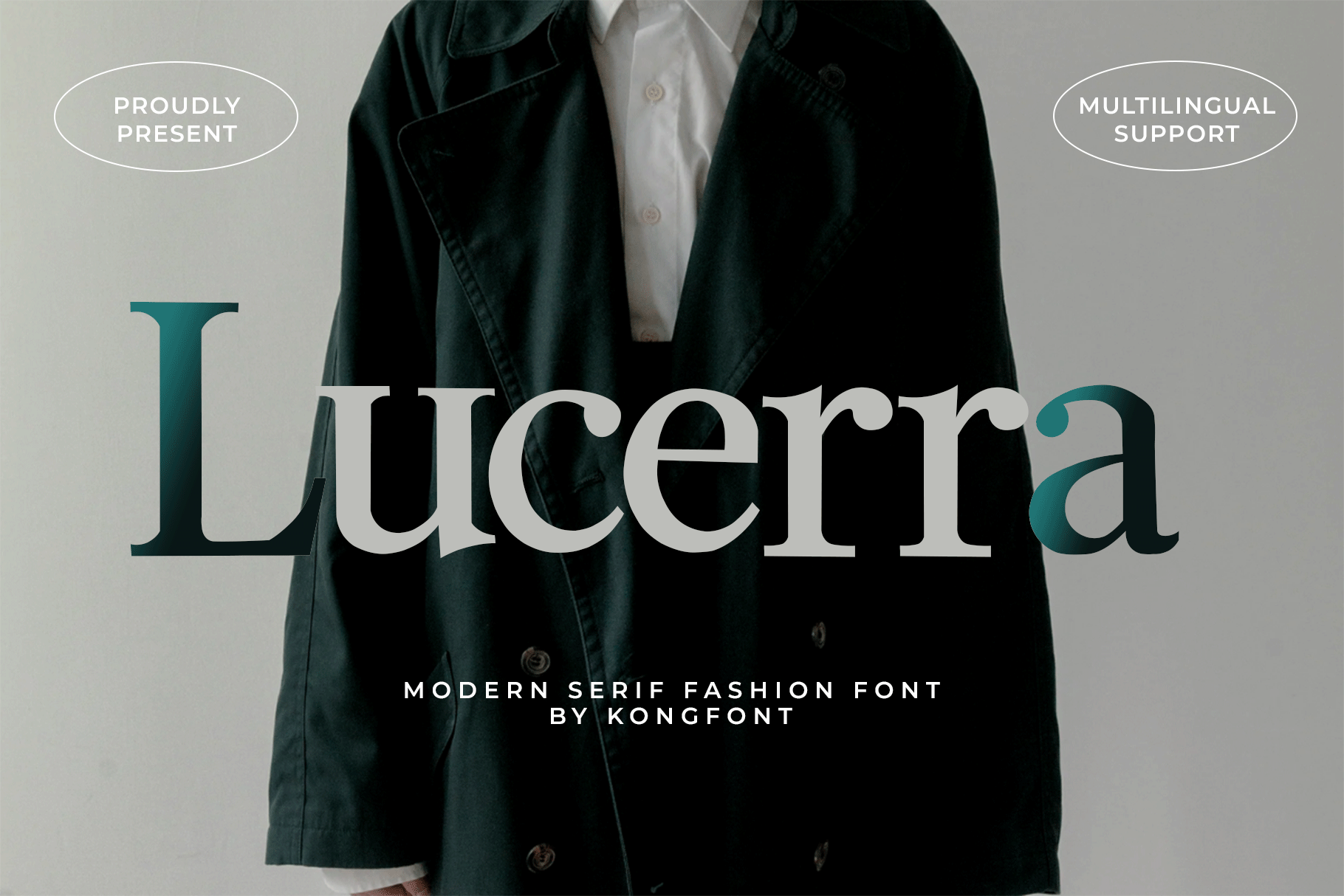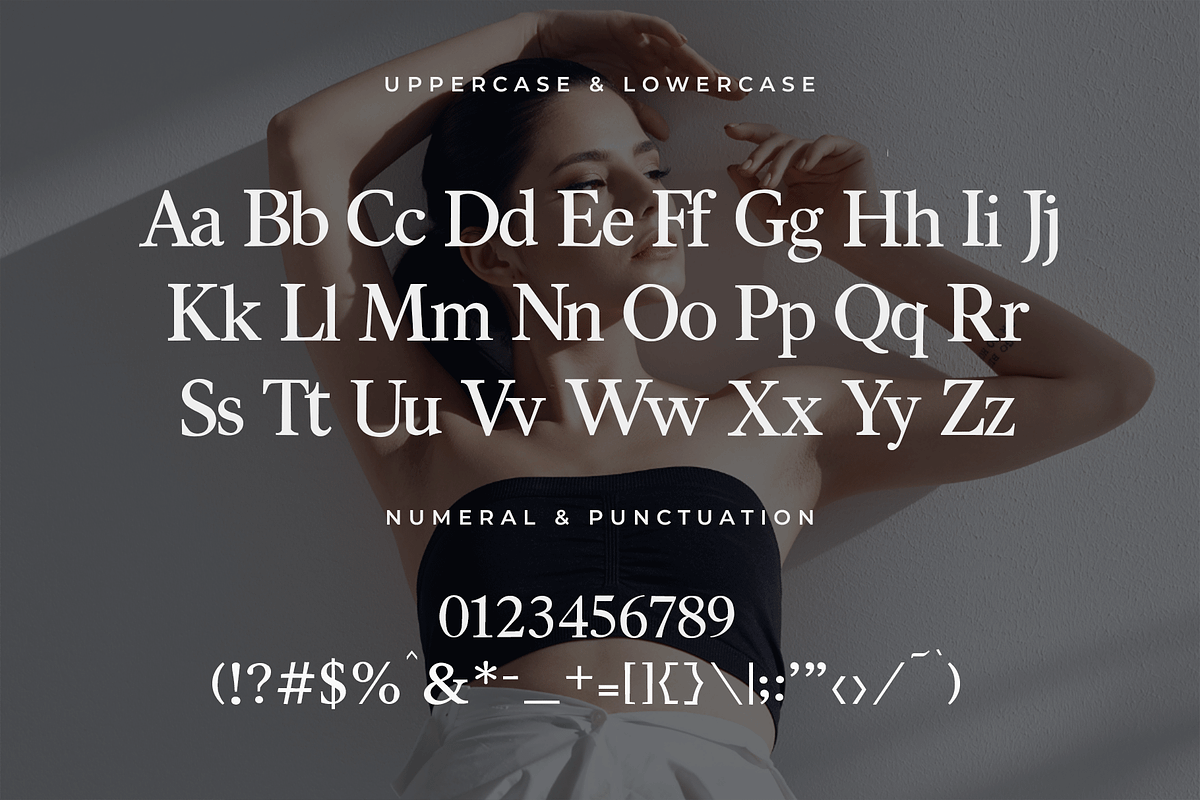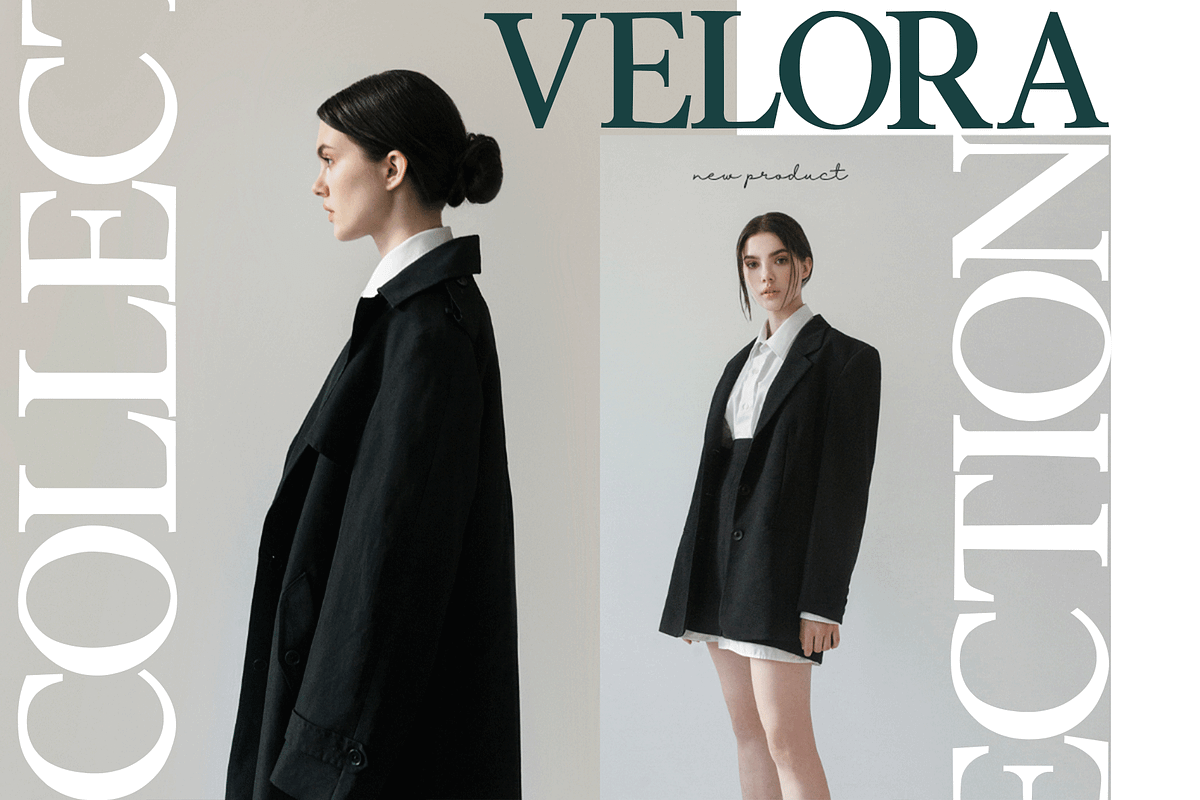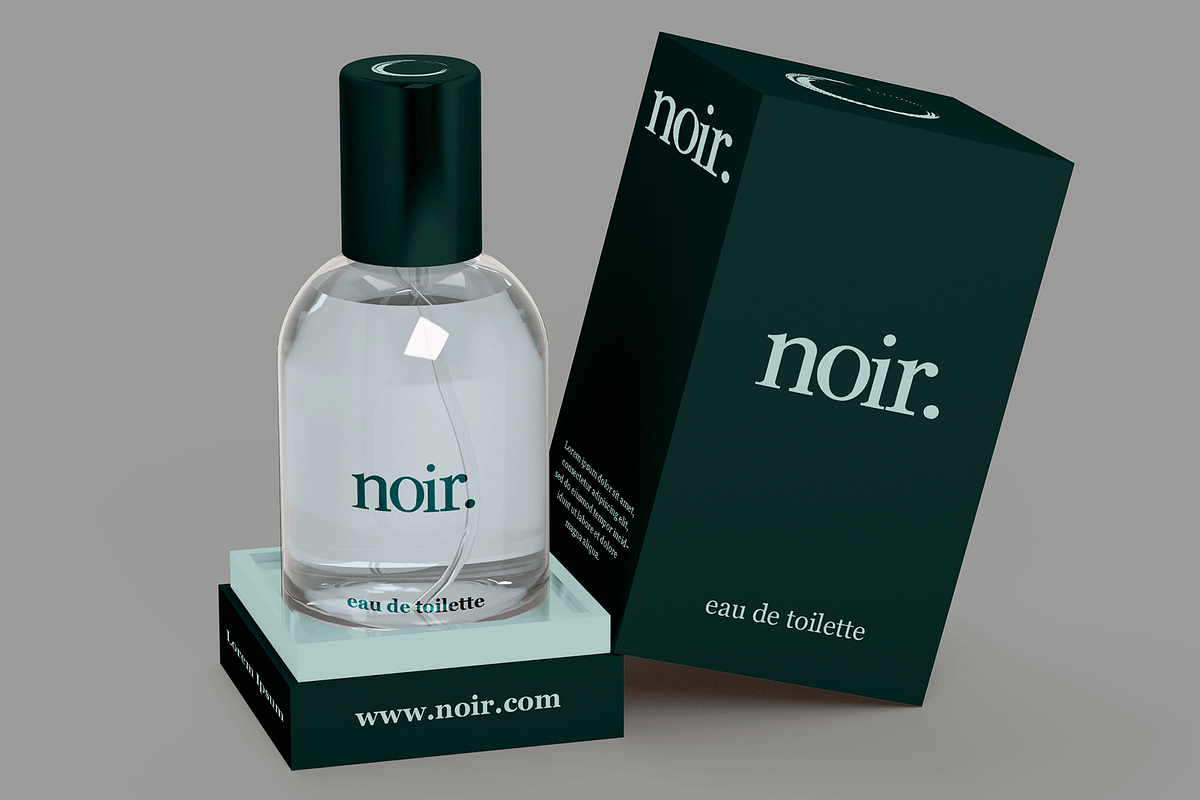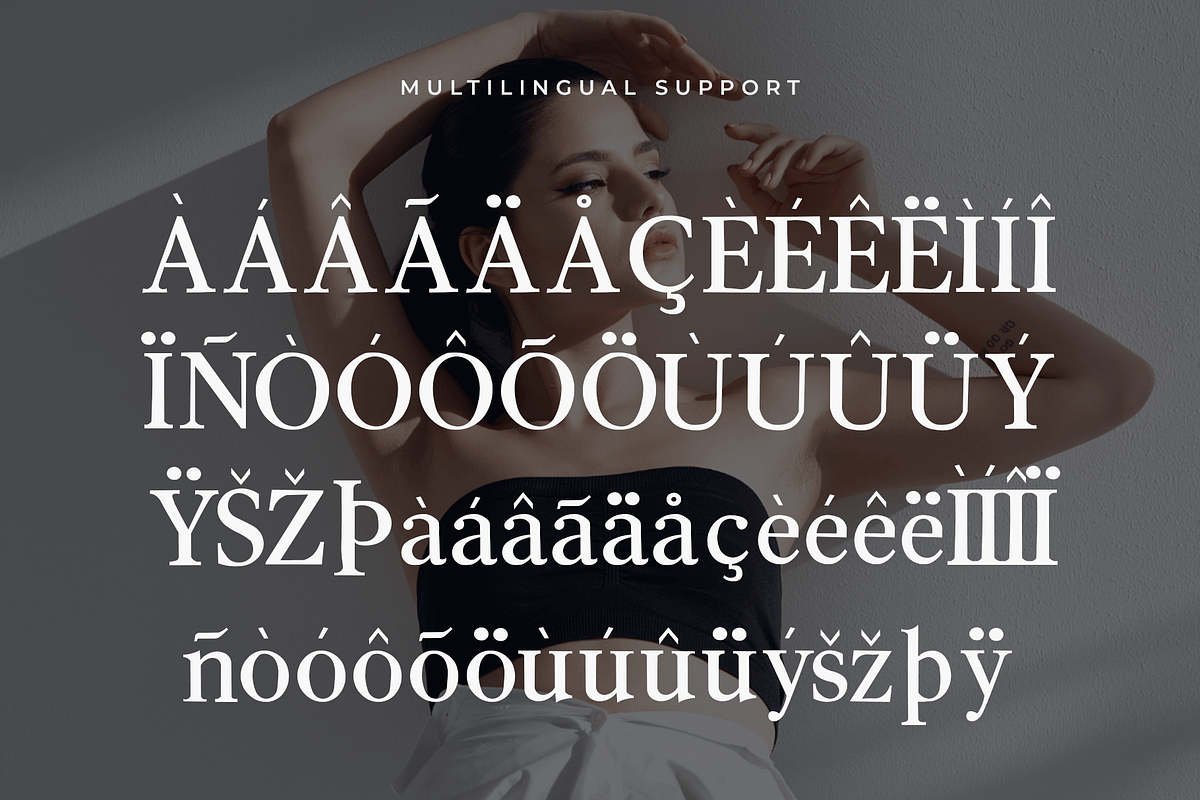
Lucerra – Modern Serif Fashion Font
Lucerra is a modern serif fashion font designed to express sophistication, beauty, and contemporary luxury. Featuring refined serifs, graceful contrast, and stylish proportions, Lucerra delivers a chic typographic aesthetic perfect for premium fashion and editorial design.
This typeface includes uppercase and lowercase letters, numerals, punctuation, and multilingual support, ensuring versatility for both print and digital applications. Its refined details and fashionable personality make it perfect for designs that demand elegance and exclusivity.